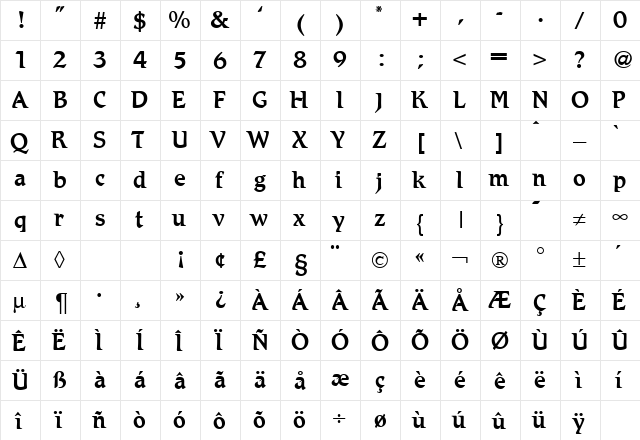
RomanceMedium Regular
Design Context for RomanceMedium Typeface
RomanceMedium is a composed and adaptable typeface that performs quietly and consistently across a wide range of design contexts.